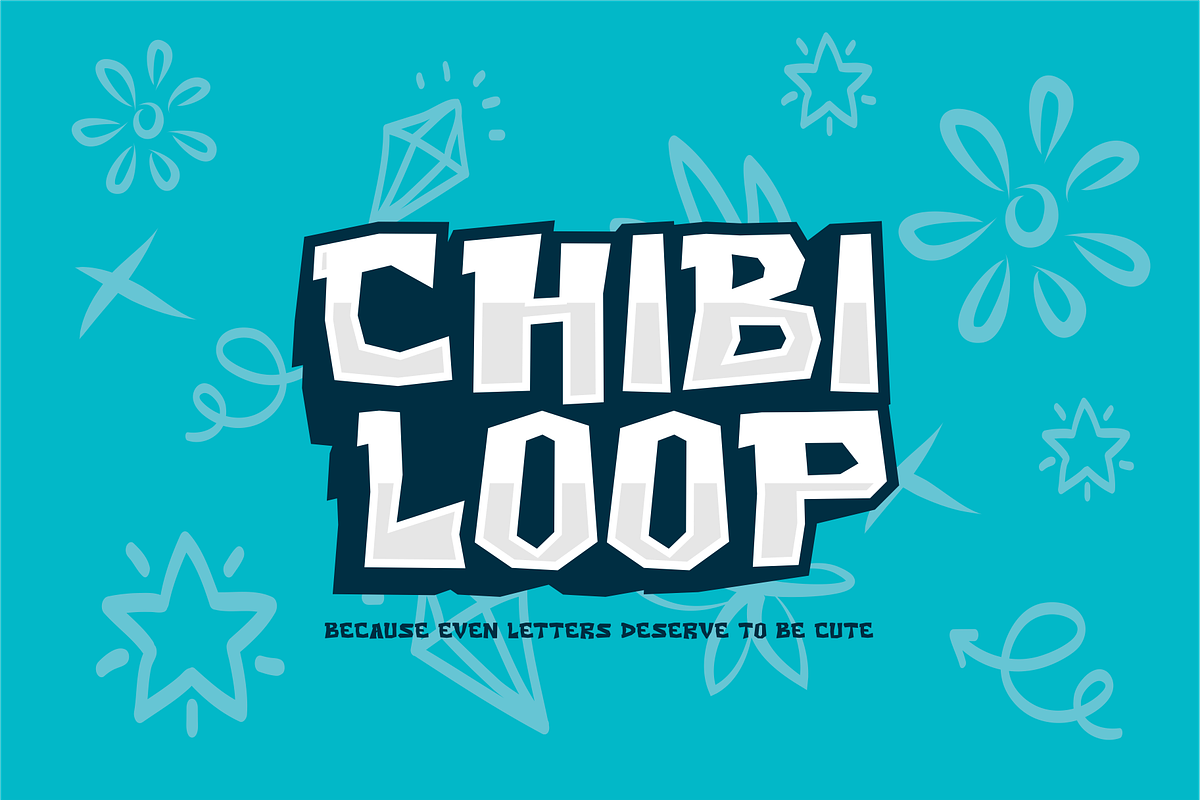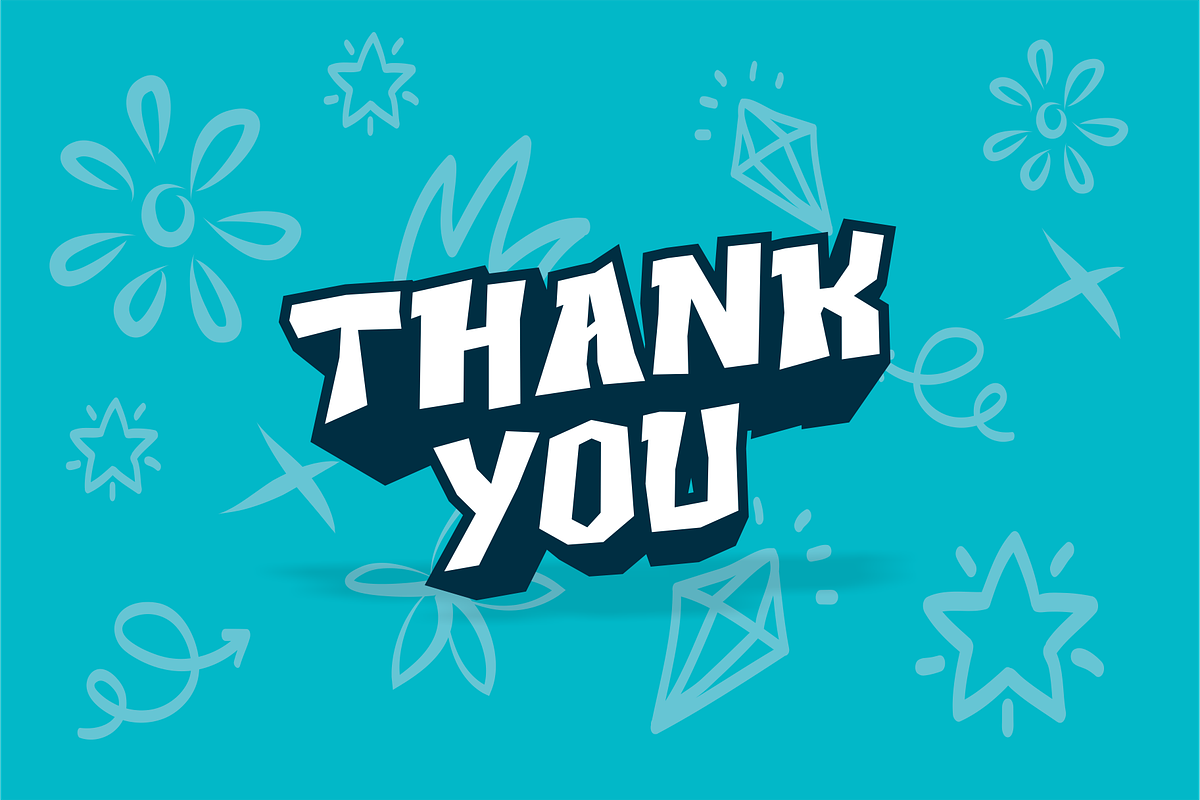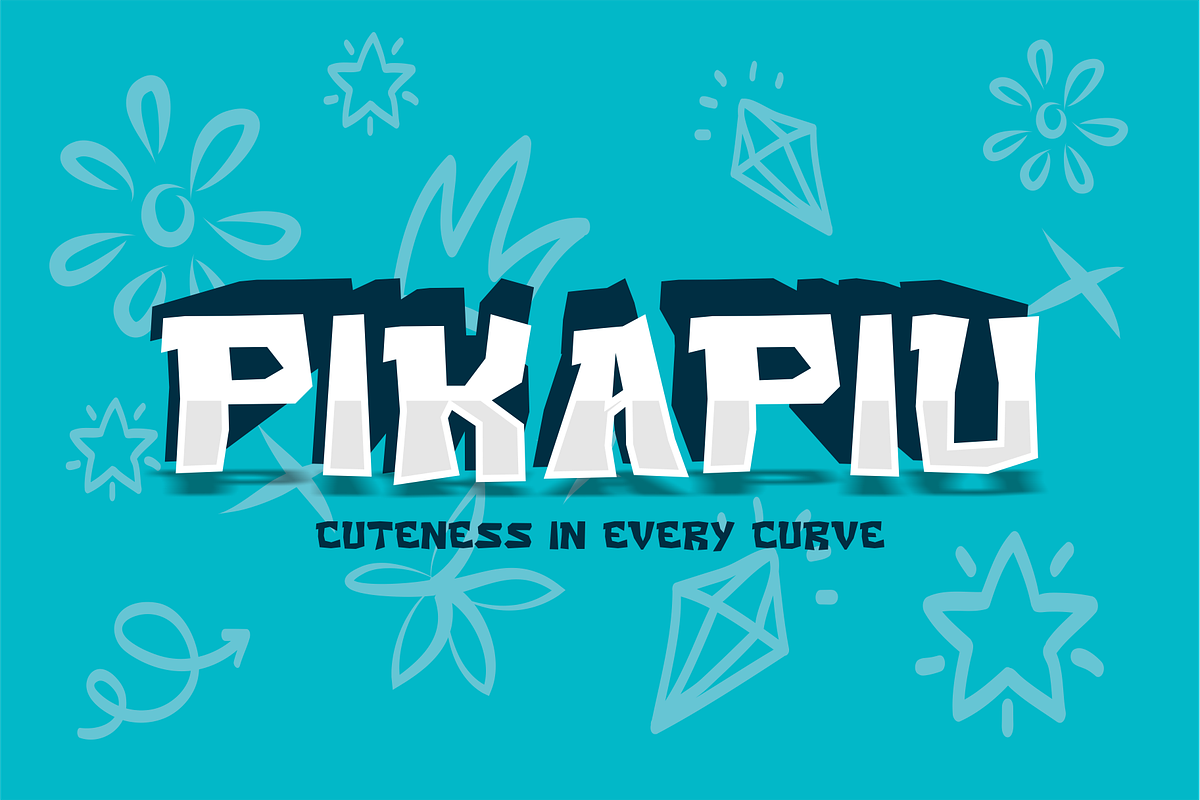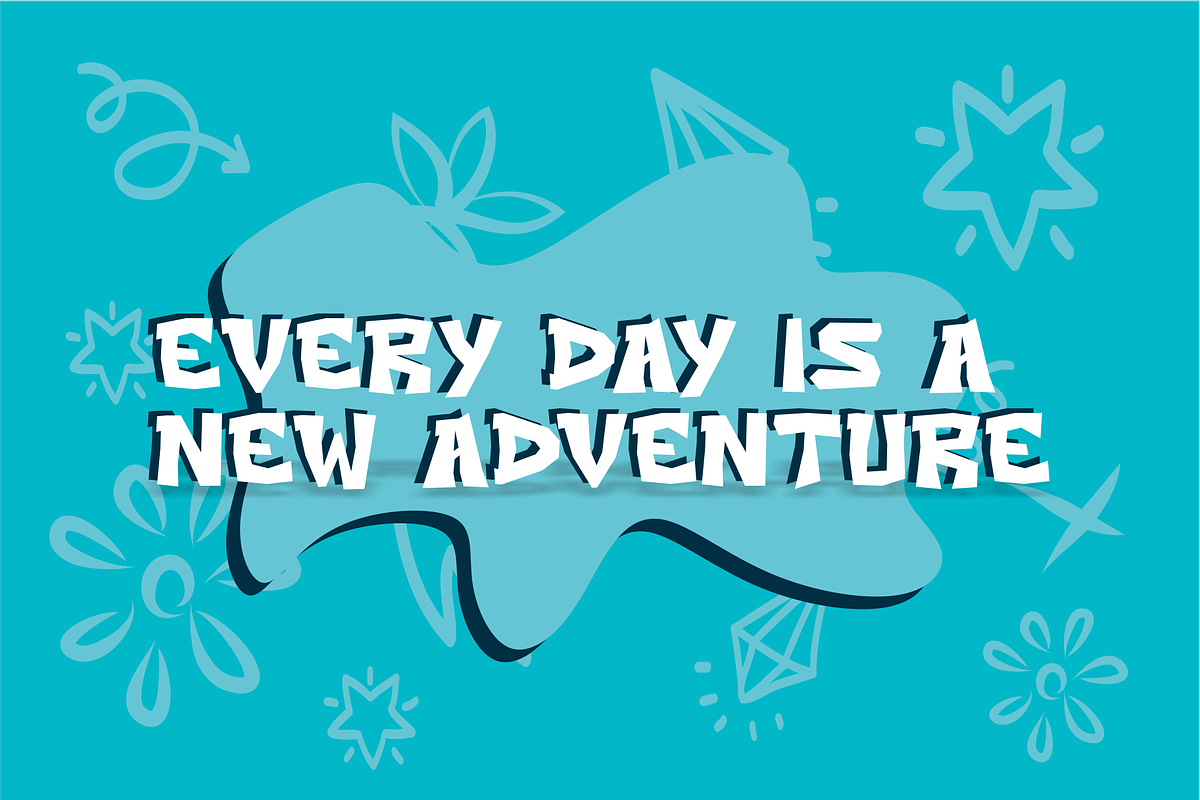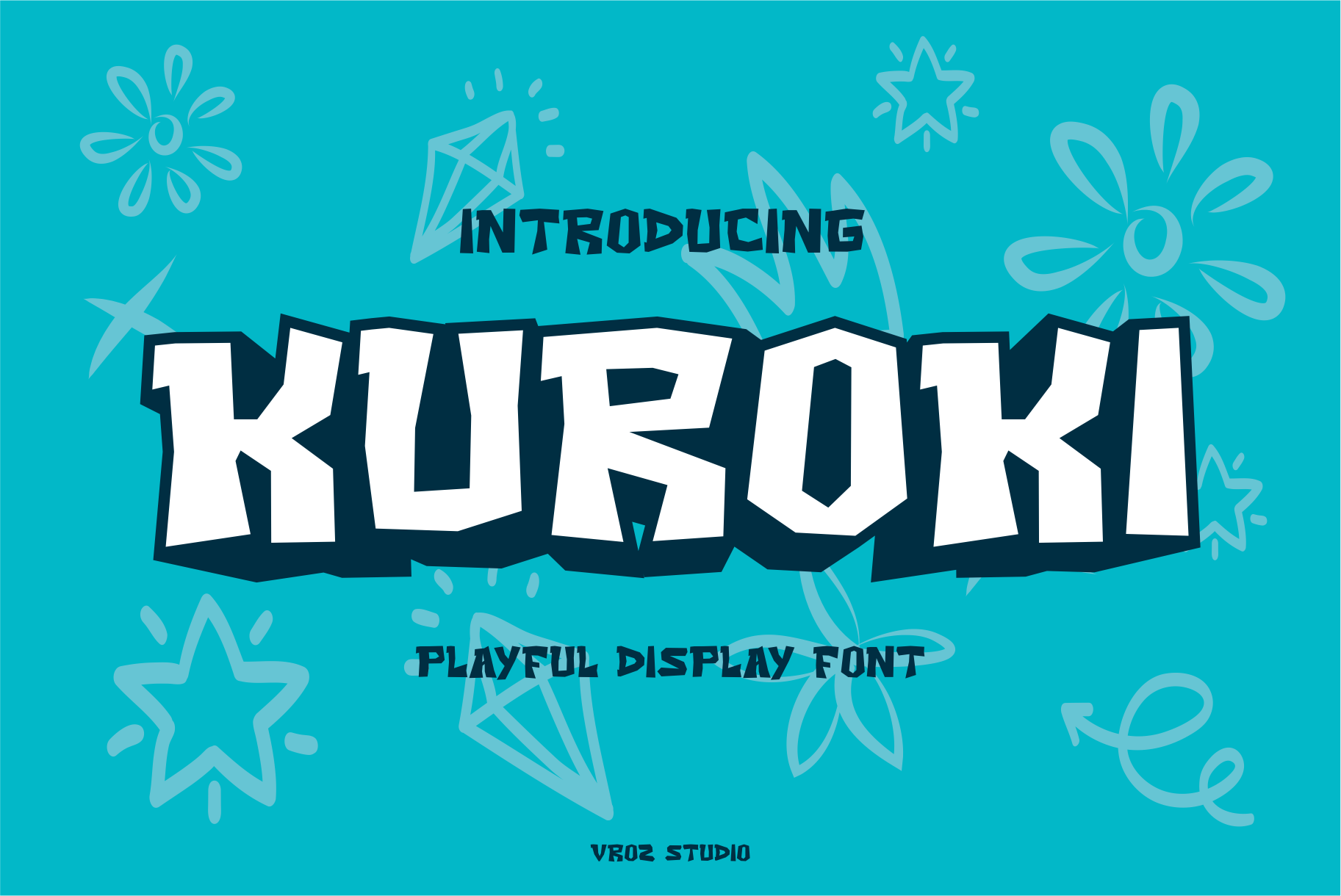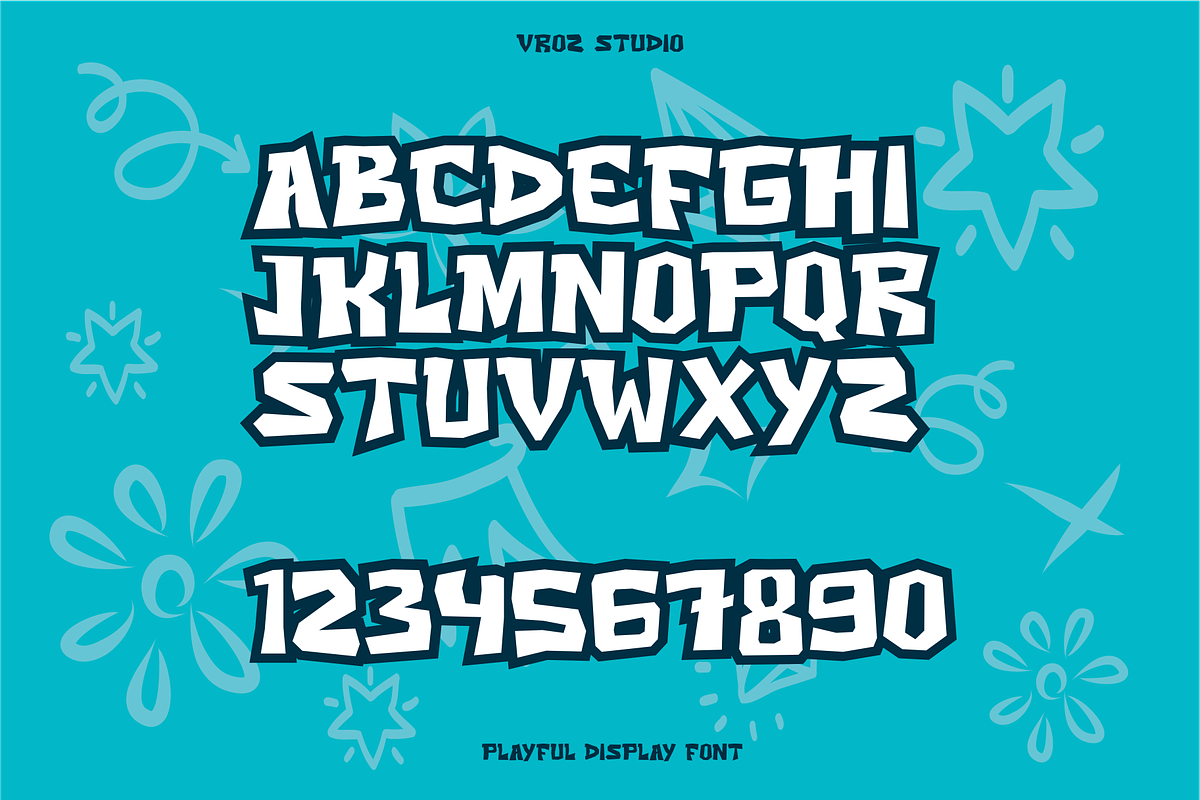
KUROKI - Playful Display Font
KUROKI – A Bold & Playful Display Font
KUROKI is a dynamic and expressive display font crafted to bring joy, energy, and bold personality to any design. Featuring thick strokes, whimsical curves, and a lively cartoon-inspired style, KUROKI is built to captivate attention and elevate creative projects with a fun, standout look.
Ideal for vibrant headlines, playful branding, children's content, game titles, YouTube graphics, comics, stickers, posters, and party invitations—KUROKI adds a sense of motion and excitement to your message. Its bubbly, animated letterforms radiate charm and creativity, making every word come alive.
- Bold, high-impact characters
- Quirky and joyful aesthetic
- Perfect for both print and digital media
Unleash your imagination with KUROKI—the font that brings character, fun, and vibrancy to every letter.